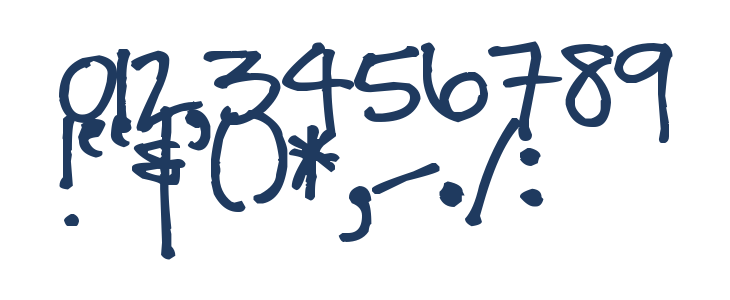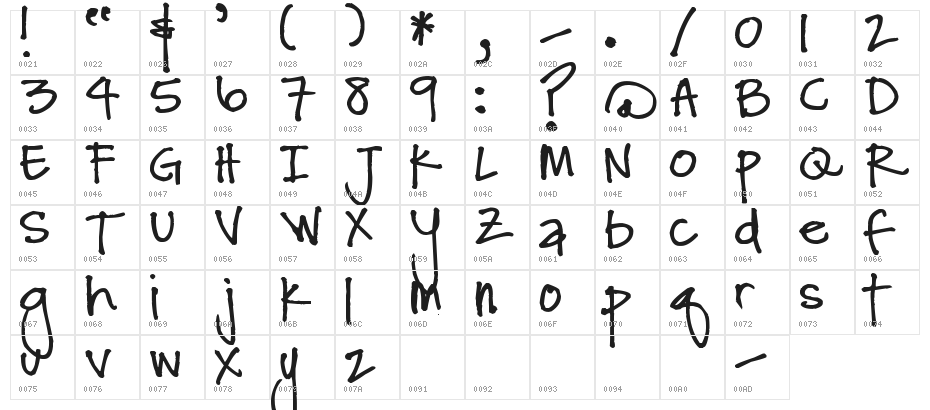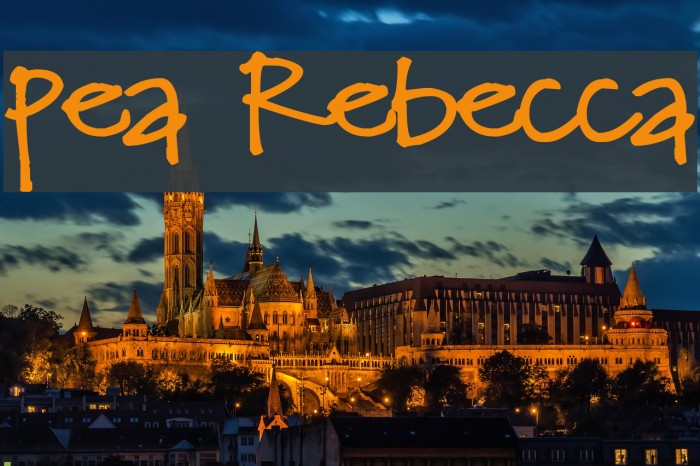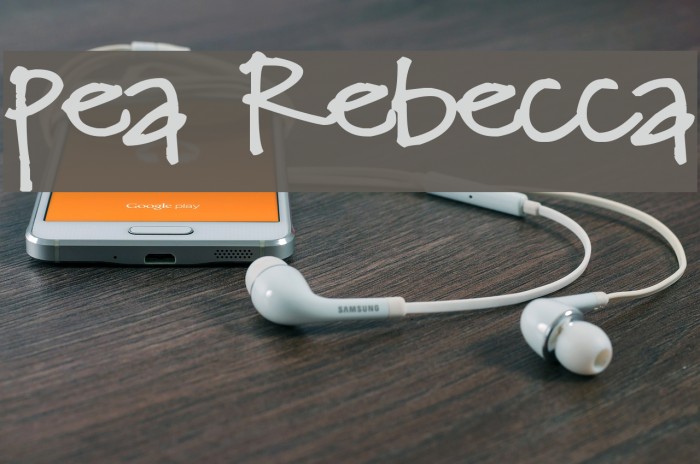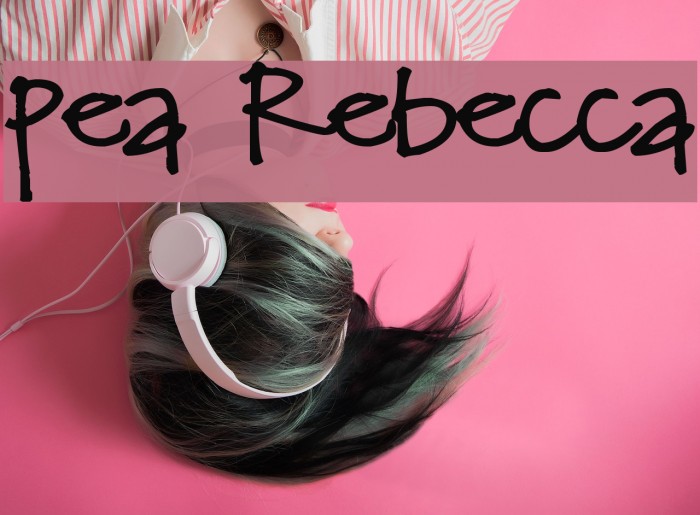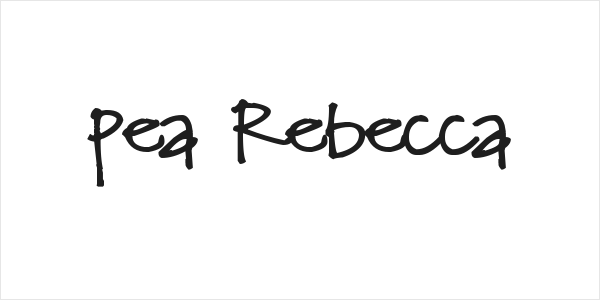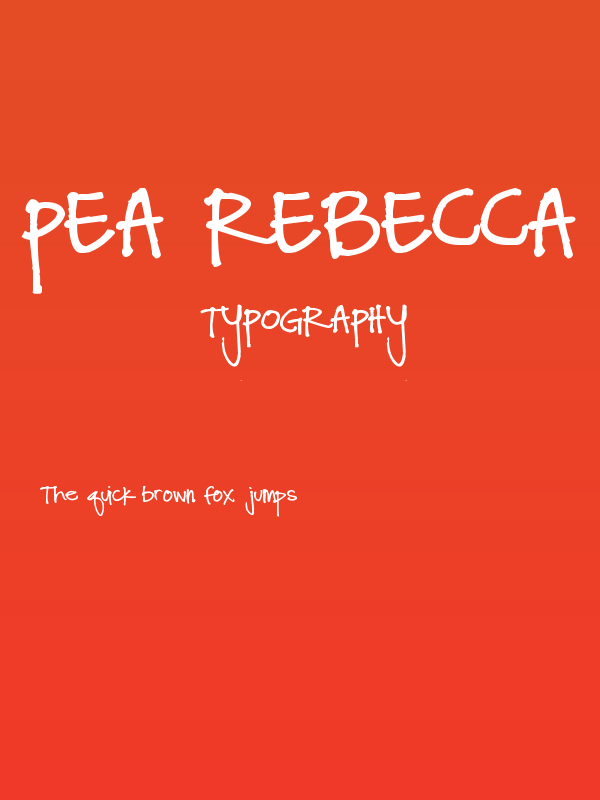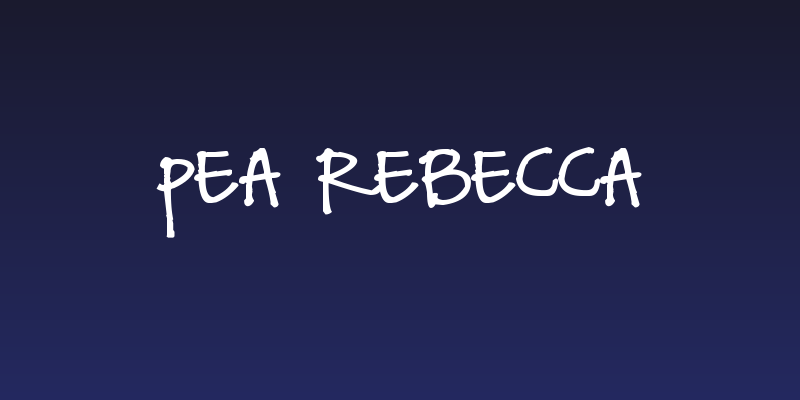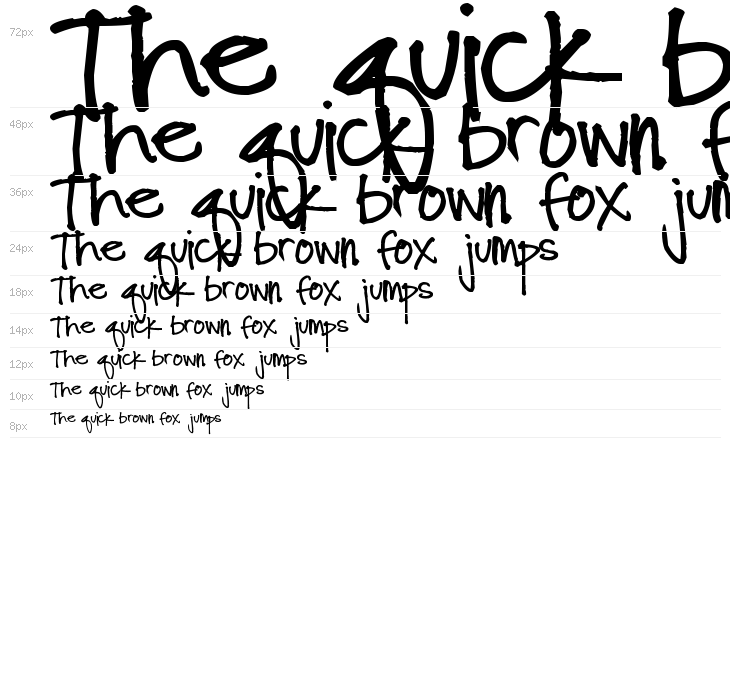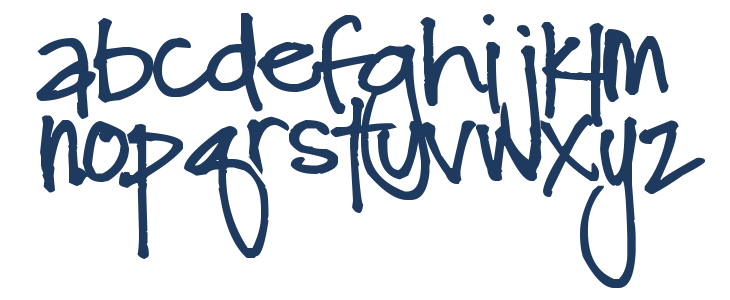
Pea Rebecca Font
Pea Rebecca Description
This font features a playful and casual handwritten style, characterized by its uneven strokes and informal appearance. The letters are slightly slanted, giving it a dynamic and lively feel. The uppercase and lowercase letters maintain a consistent style, with rounded edges and a slight tilt that adds to its charm. Numbers and special characters follow the same handwritten aesthetic, making it versatile for various uses. The overall look is reminiscent of personal notes or informal messages, making it ideal for projects that require a personal touch.
| Use Case | Logos, Headlines, Informal Text |
| Proposed Projects | Ideal for greeting cards, personal notes, informal invitations, and creative projects that require a personal touch. |